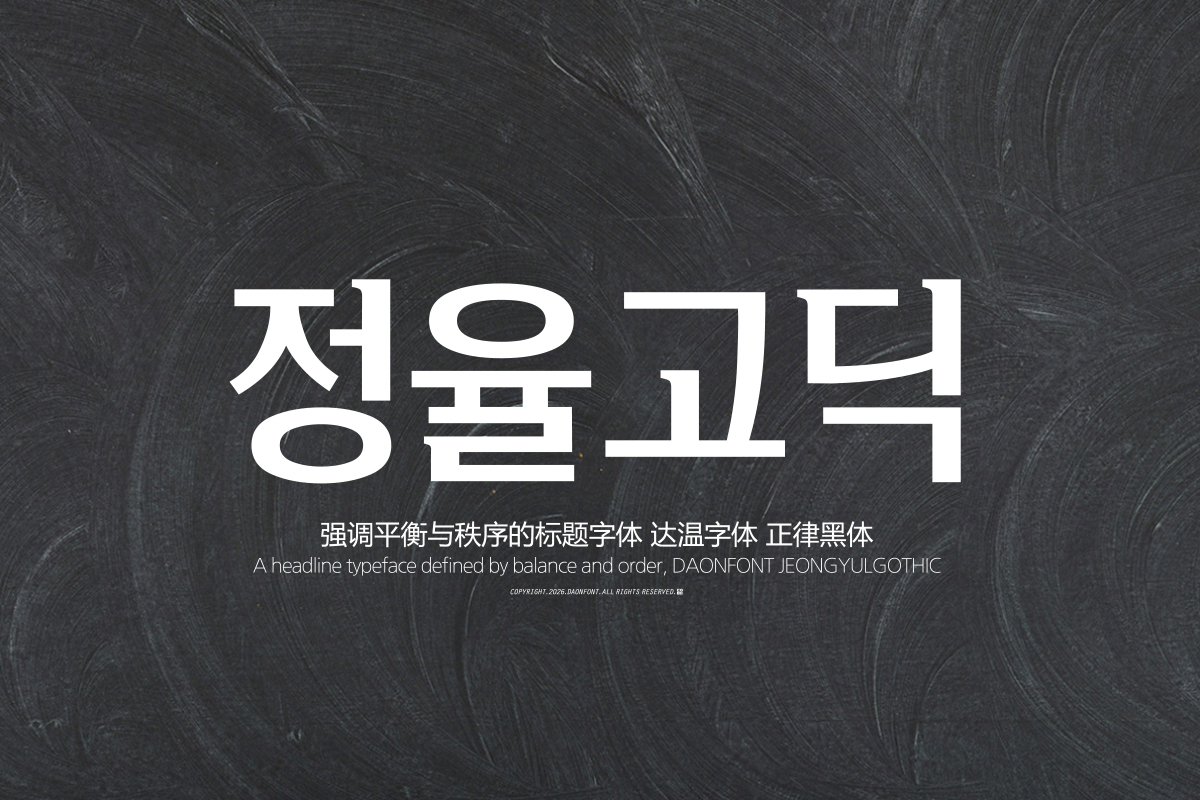
DAON JEONGYUL GOTHIC
'JEONGYUL GOTHIC' is a Gothic typeface characterized by the contrast between horizontal and vertical strokes and neat serifs, conveying an impression of stability and dignity. 'JEONGYUL GOTHIC' is a font that creates a distinctive impression by introducing serifs, which are rare in typical Gothic typefaces.